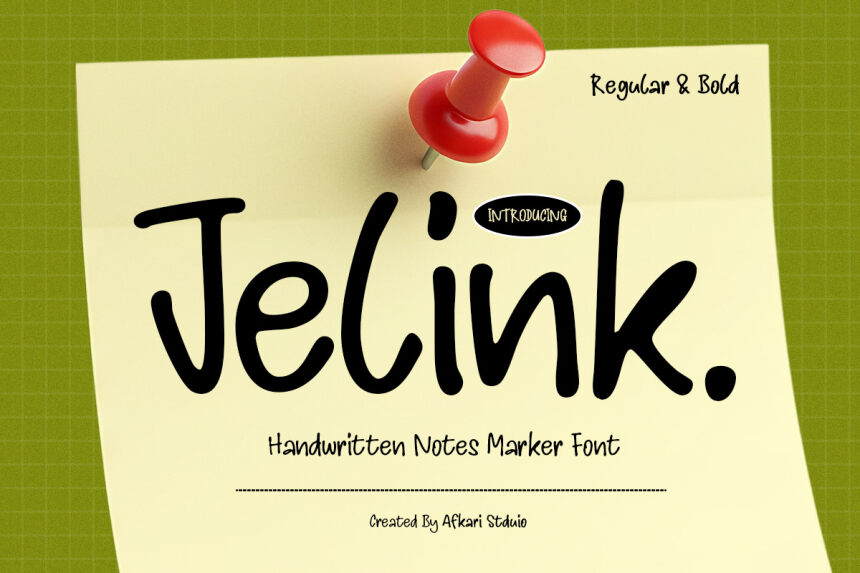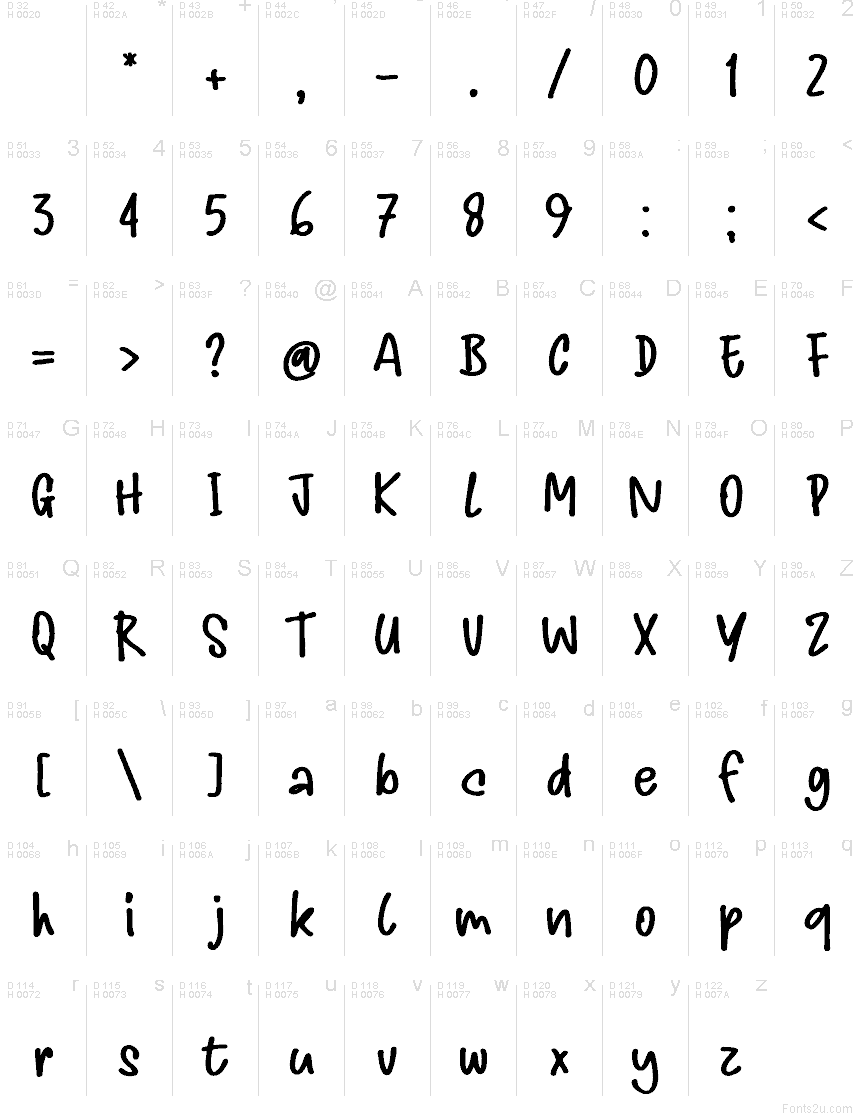
Jelink Bold by Afkari Studio is a free bold handwritten font with a chunky marker feel and a relaxed, friendly rhythm. The letters lean on soft rounded strokes, bouncy joins, and slightly uneven proportions that make the font feel personal rather than polished.